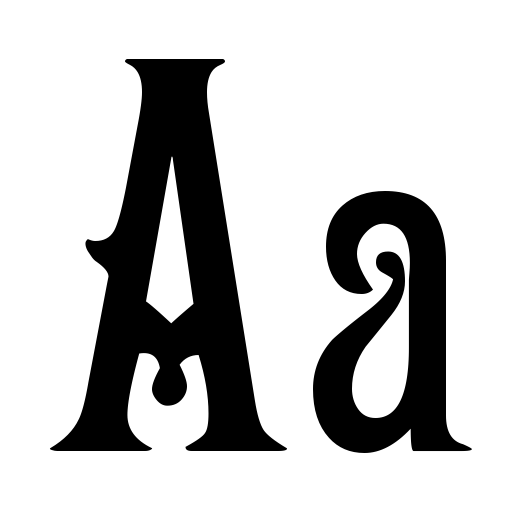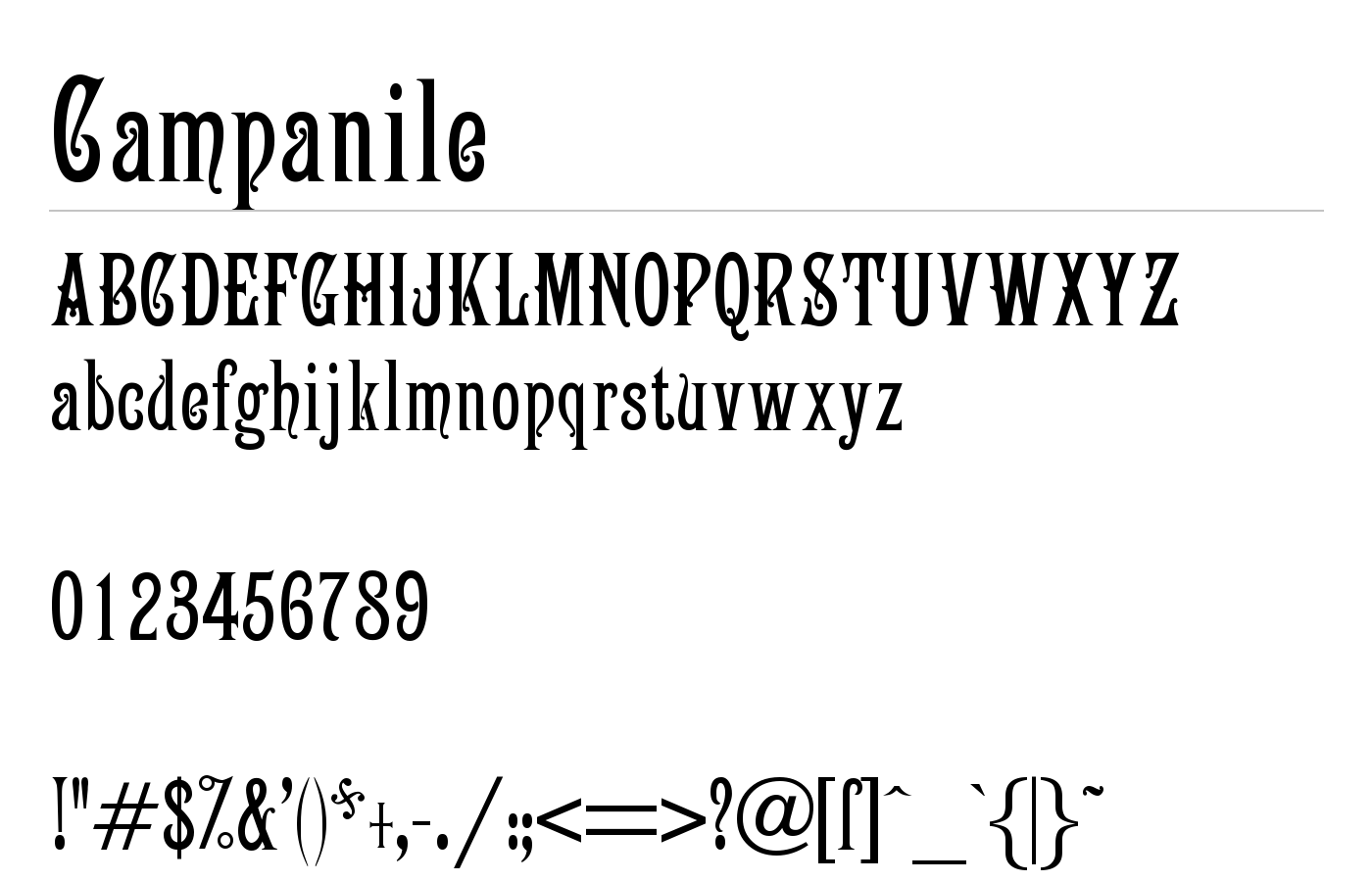
Campanile is a distinct serif font with a vintage, decorative flair, featuring tall, narrow letterforms and high contrast between thick and thin strokes. Its unique, somewhat playful serifs and quirky details make it ideal for eye-catching headlines, branding, and designs that want to convey a retro or whimsical character. This font works well in creative projects like posters, logos, and packaging where a strong personality is desired.
Campanile Font
About Campanile Font